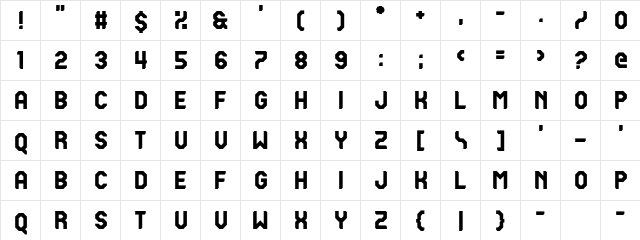
Lesotho Beach Regular
| Designer | Allison James |
Design Context for Lesotho Beach Typeface
Lesotho Beach offers clean, dependable letterforms without strong stylistic allegiance, making it a practical choice for designers who need flexibility.